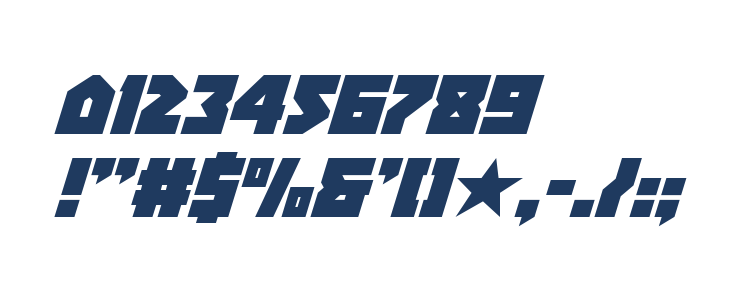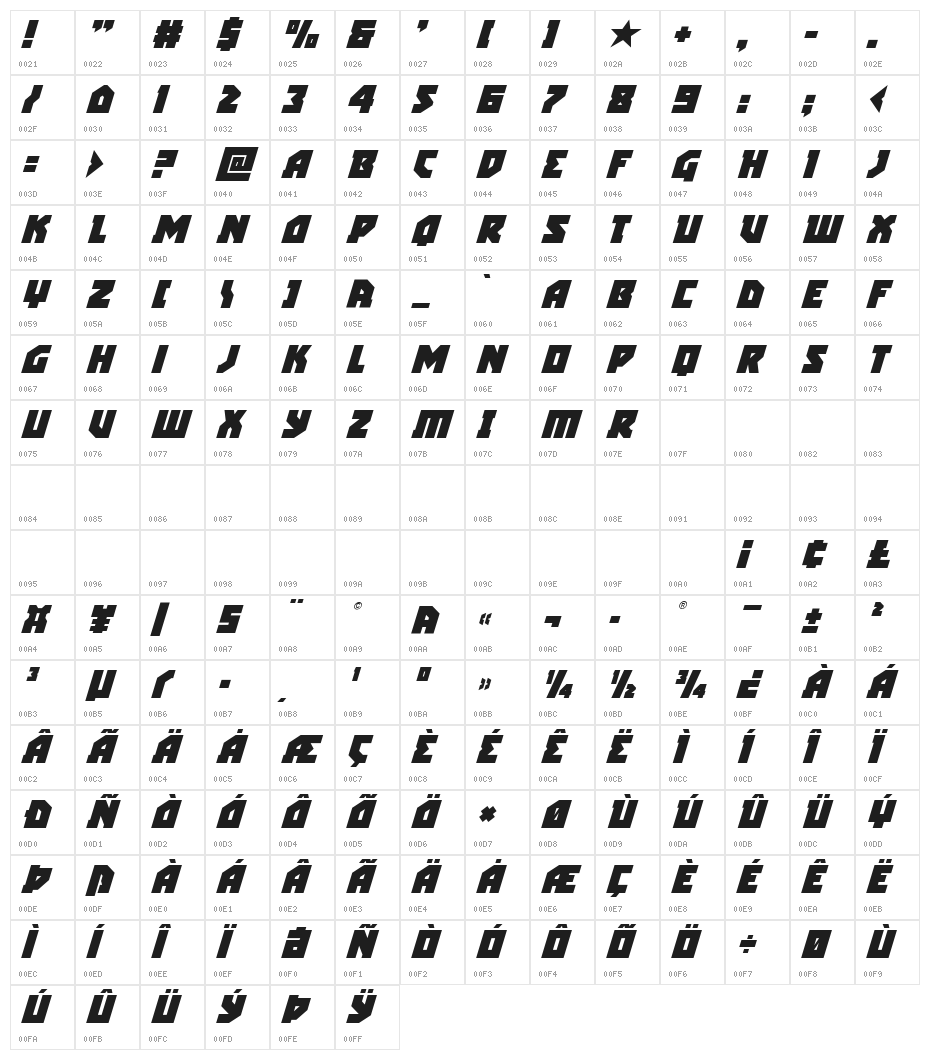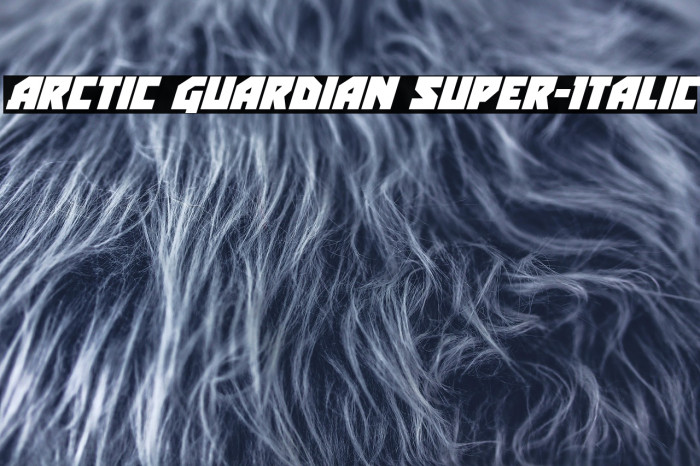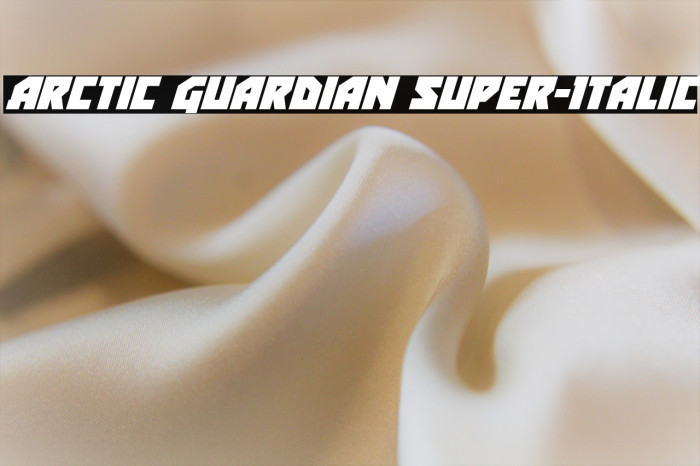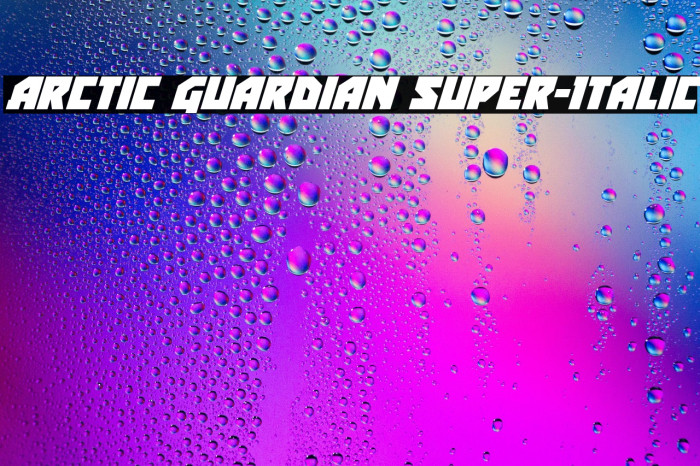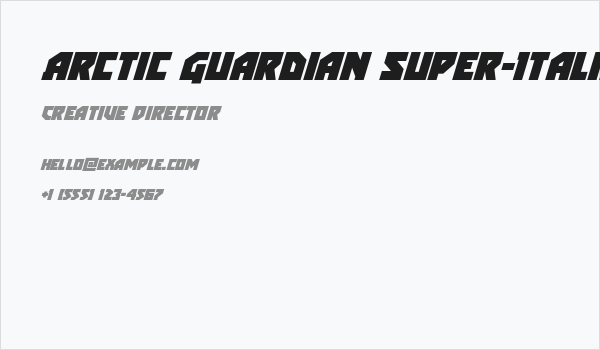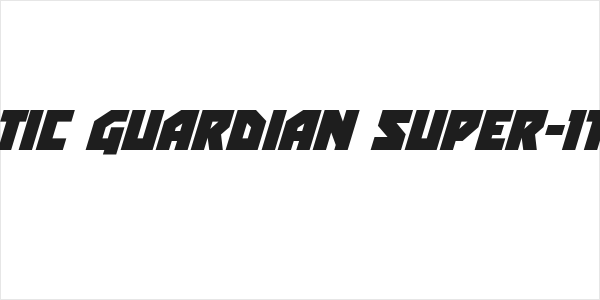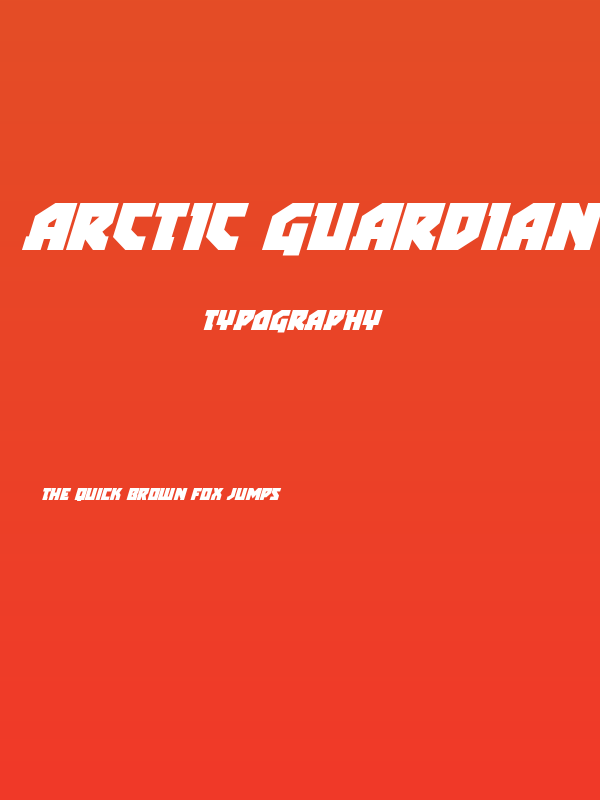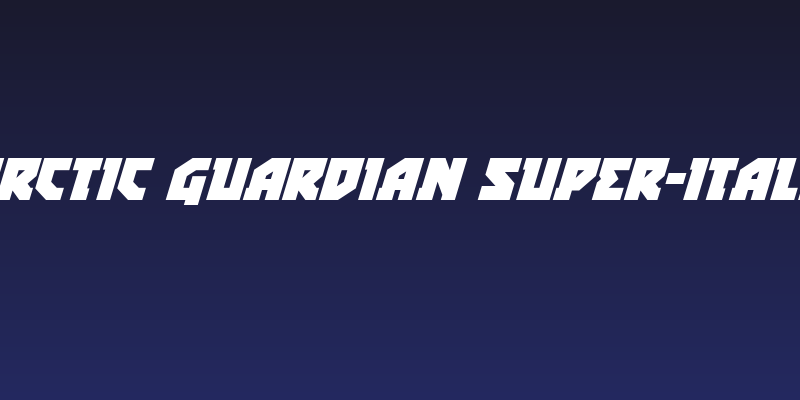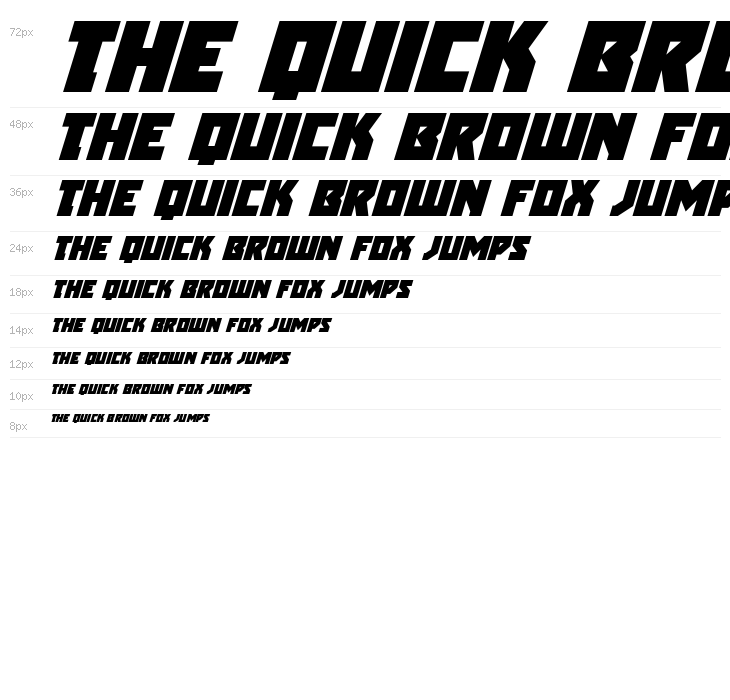
Arctic Guardian Super-Italic Font
Arctic Guardian Super-Italic Description
This font features a bold and dynamic style with sharp, angular edges and a strong italic slant. The characters are designed with a futuristic and aggressive appearance, making them stand out with their thick strokes and geometric shapes. The uppercase and lowercase letters maintain a consistent design, while the numerals and special characters complement the overall aesthetic. The font's distinct look is ideal for projects that require a modern and edgy feel.
| Proposed Projects | Ideal for video game titles, sports team logos, sci-fi movie posters, and edgy branding materials. |